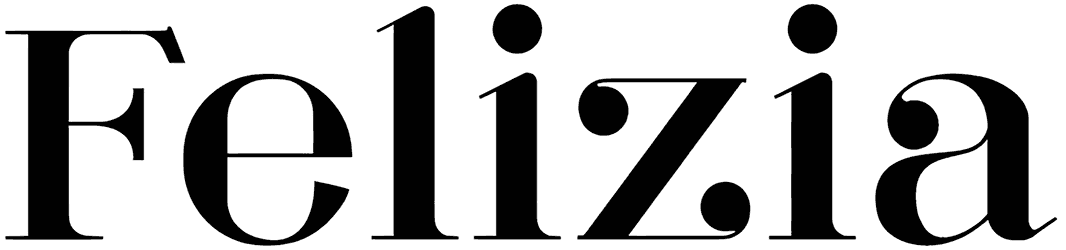
MGN Felizia Font
So you’re stuck in a formal project, so what?! What’s so horrible about that when you can ask for several hundred classic fonts on Resource Boy? Just like that, you have something God-like to present to your audience, exactly like what you’re seeing now with MGN Felizia in front of you.
Notice the circle tips versus the sharp, thin serifs? That means MGN Felizia doesn’t have to follow the same pattern to shine in your music business cards, and more.